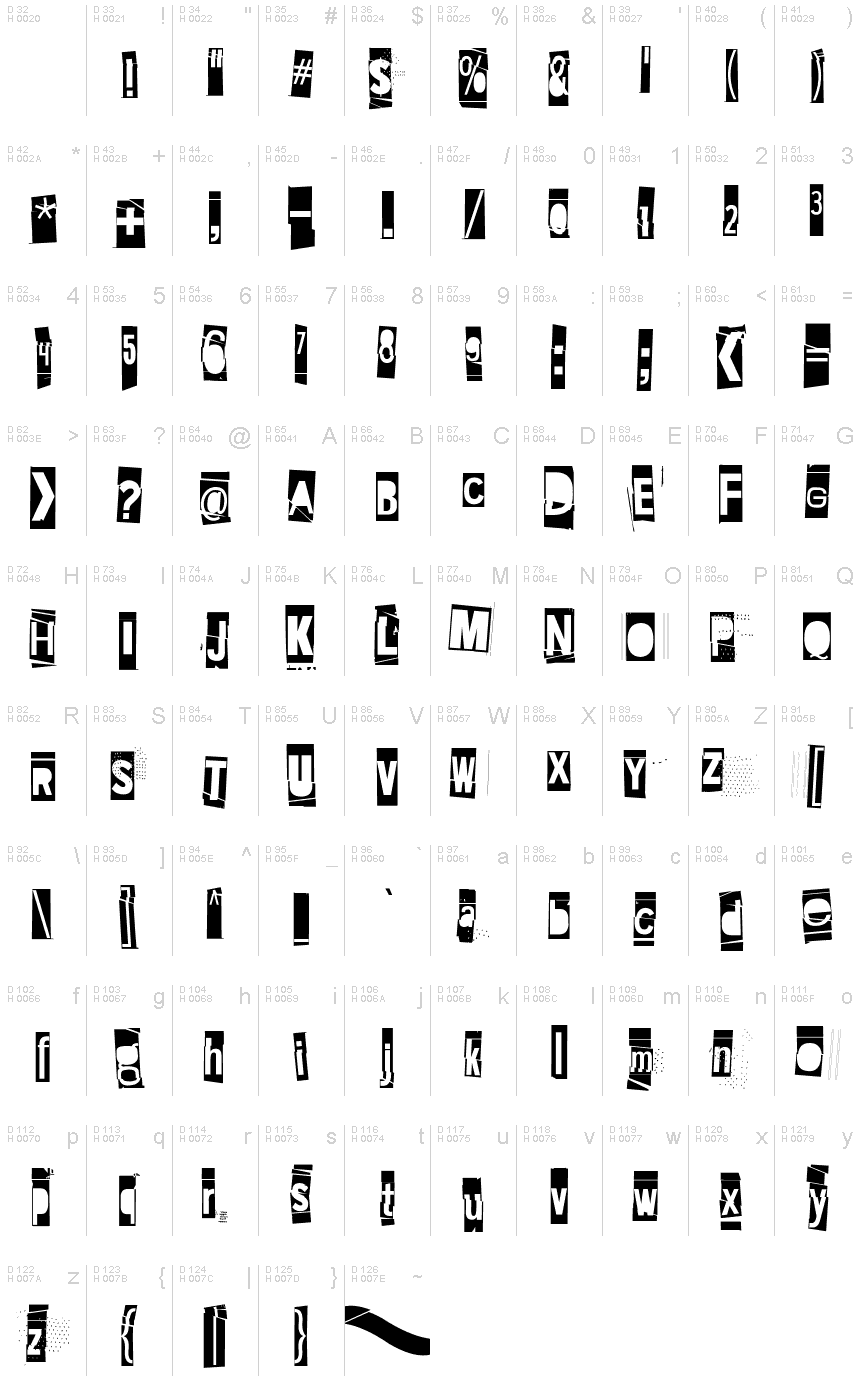
Extraoin Zhurdlyou Total War Mi
Looking for a font that captures the essence of chaos and destruction? Look no further than Extraoin Zhurdlyou Total War Missing by junkohanhero. This bold display font features a negative distorted style that's perfect for projects that need to convey grit, grime, and danger. From posters promoting a heavy metal concert to video game titles that need an edgy vibe, Extraoin Zhurdlyou Total War Missing is the ideal choice. Use it in its full bold weight for maximum impact or experiment with different widths to create unique effects. Whatever your project, this font is sure to make a statement.